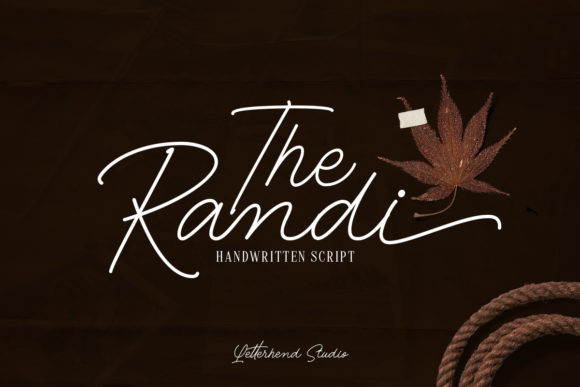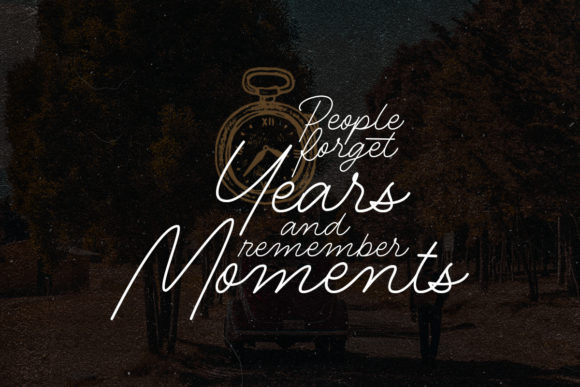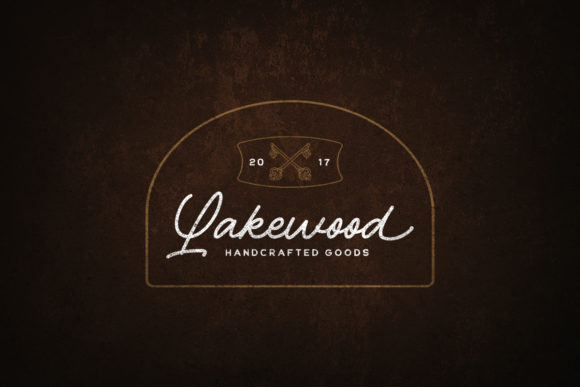
The Randi Font
The Randi FontThe Randi is a monoline handwritten script with a classy look. This type of font is perfectly made to be applied especially to logos and the other various formal forms such as invitations, labels, magazines, books, greeting / wedding cards, packaging, fashion, make up, stationery, novels, labels and more.